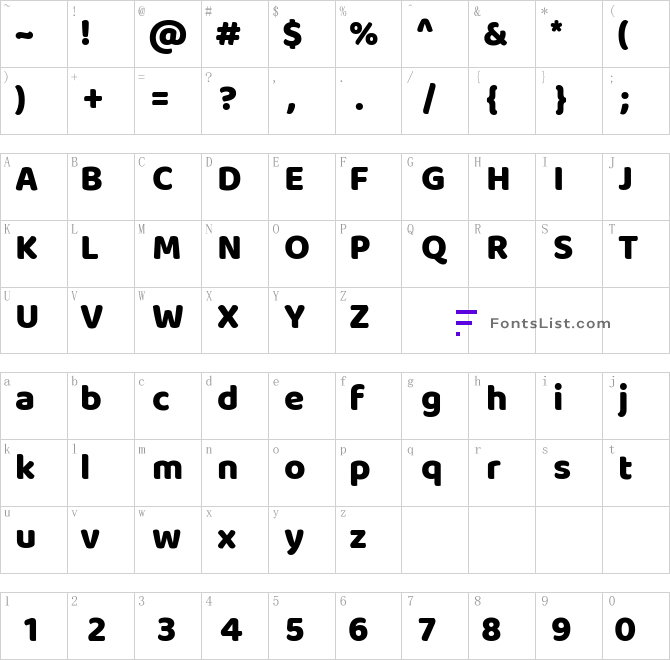
- Font Name:Baloo Paaji
Baloo-Paaji.ttf is a very beautiful artistic font, Baloo-Paaji.ttf is widely used in the design and printing of various books and pictures,Baloo-Paaji.ttf has a strong visual impact,Baloo-Paaji.ttf is a commonly used font in newspapers, magazines and books, and is used in posters, e-commerce Poster design, store design, logo design, font design and other fields.Baloo-Paaji.